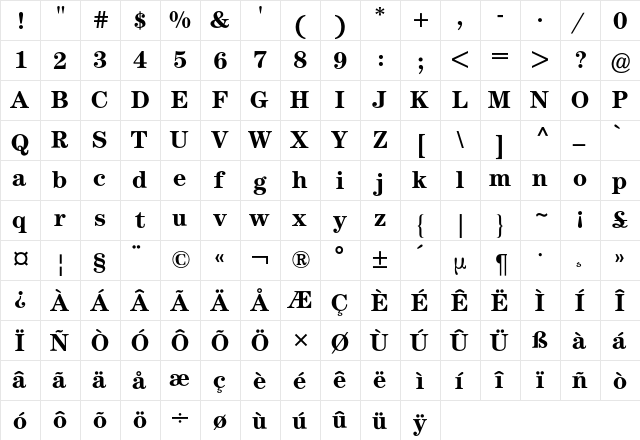
Century ITC BQ Regular Font Preview
Century ITC BQ Regular
Design Context for Century ITC BQ Typeface
Century ITC BQ offers clean, dependable letterforms without strong stylistic allegiance, making it a practical choice for designers who need flexibility.